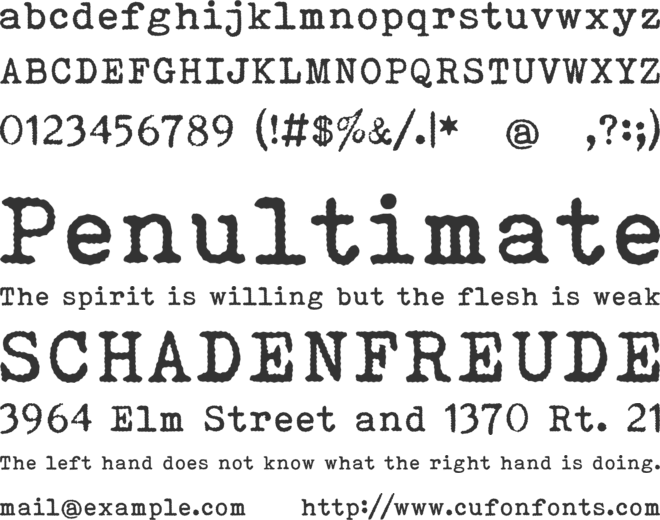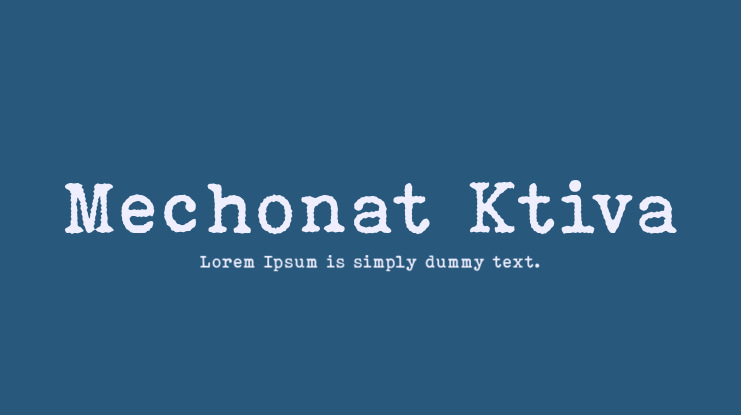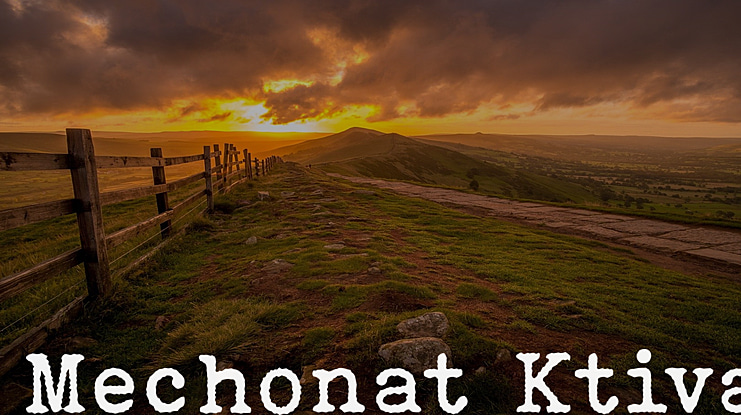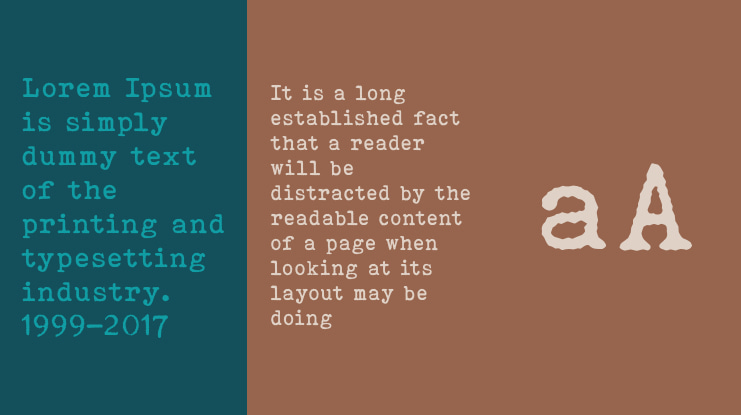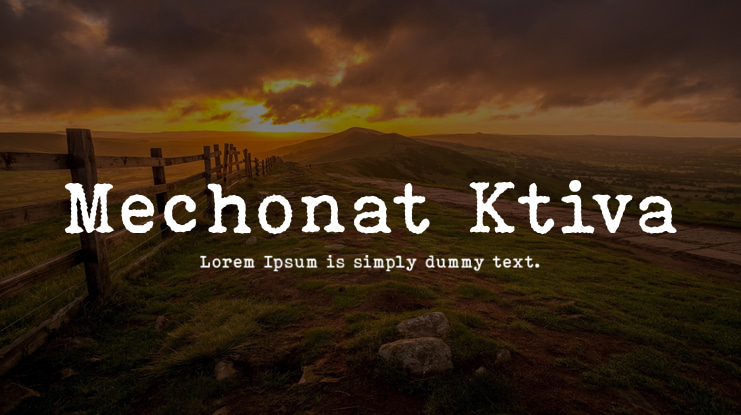
Mechonat Ktiva Font
"Mechonat Ktiva" font (2021) is primarily a Hebrew typewriter font but it also contains basic Latin character set. It is free for non-commercial use only. If you'd like to use the font commercially please contact me at my email  to get an information about pricing. I can add any extra characters or customize the font for purchasers of the commercial license.Any donation from non-commercial users to my Paypal  is welcome. You can find my other fonts on www.typewriterfonts.net And my FB page is: www.facebook.com/typewriterfonts